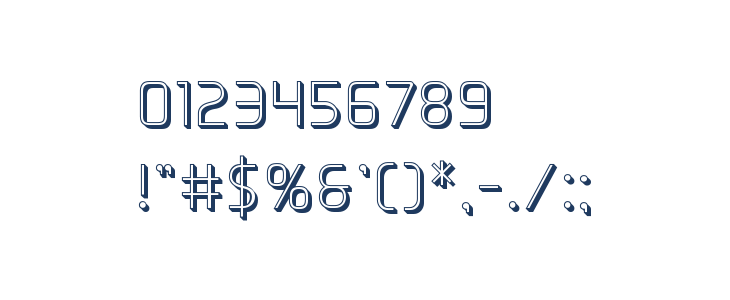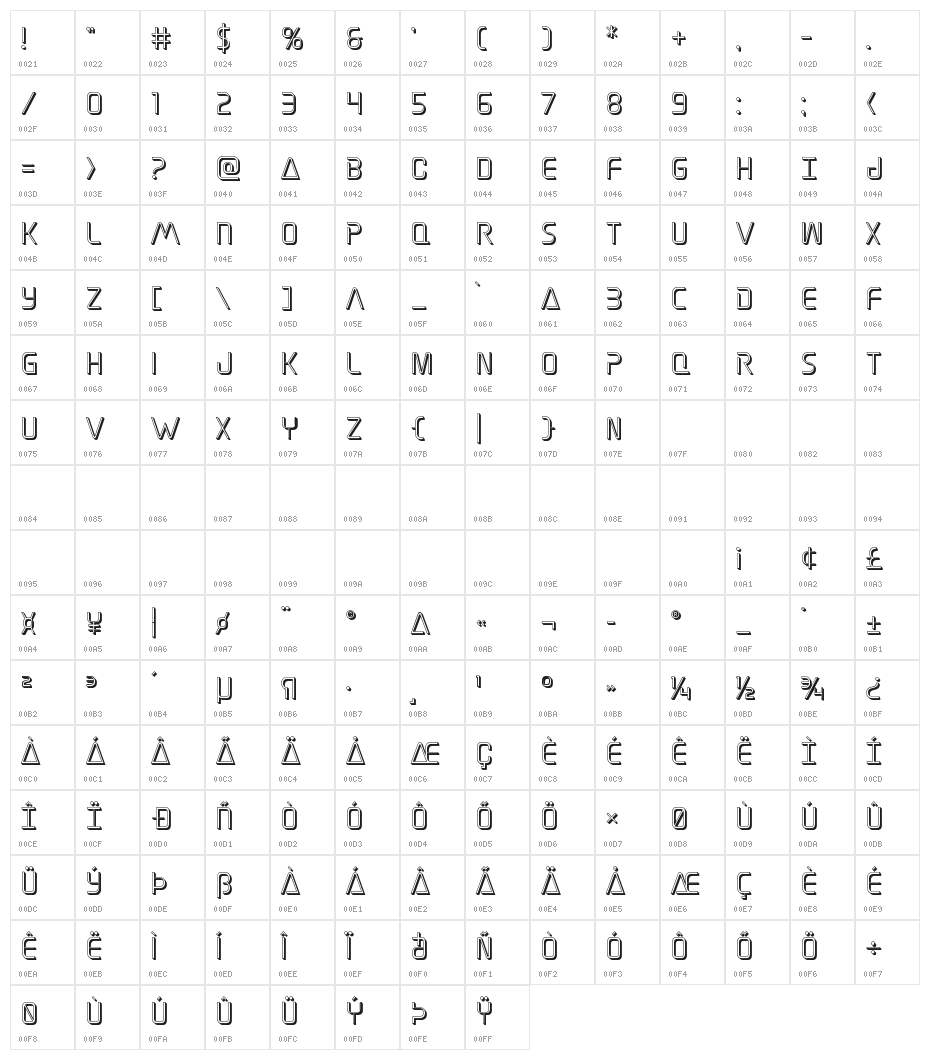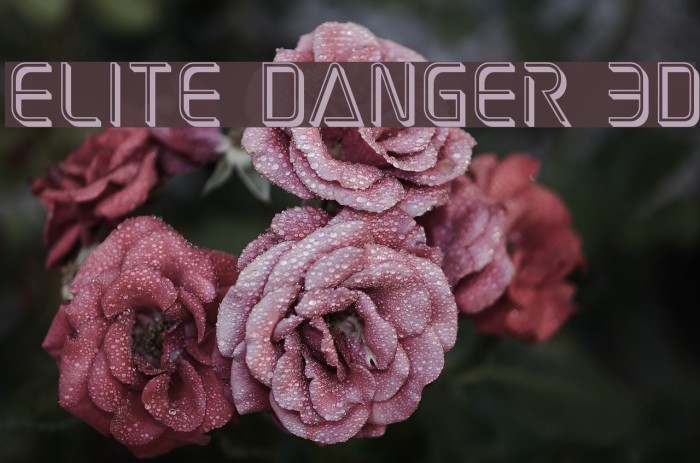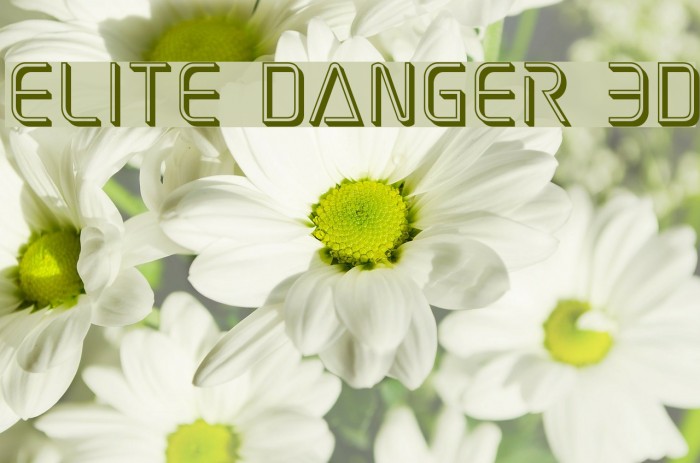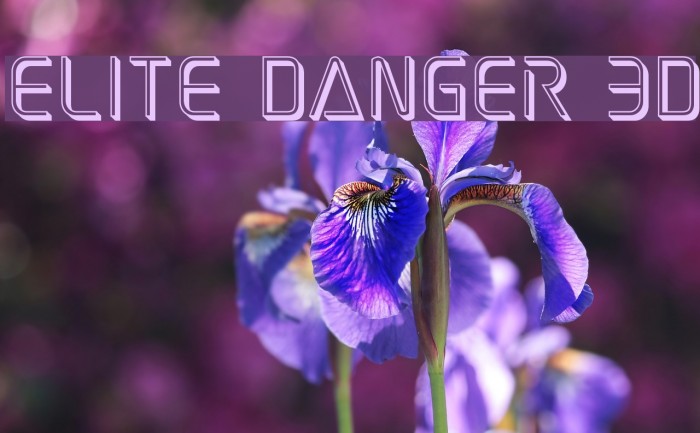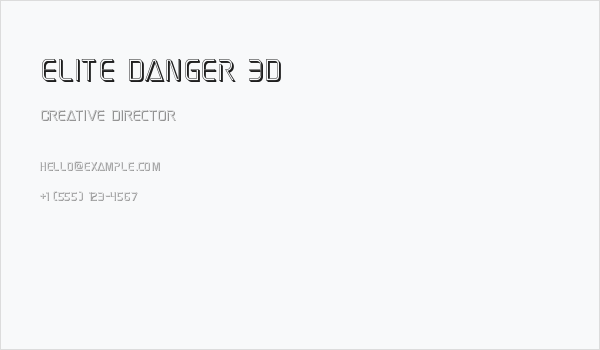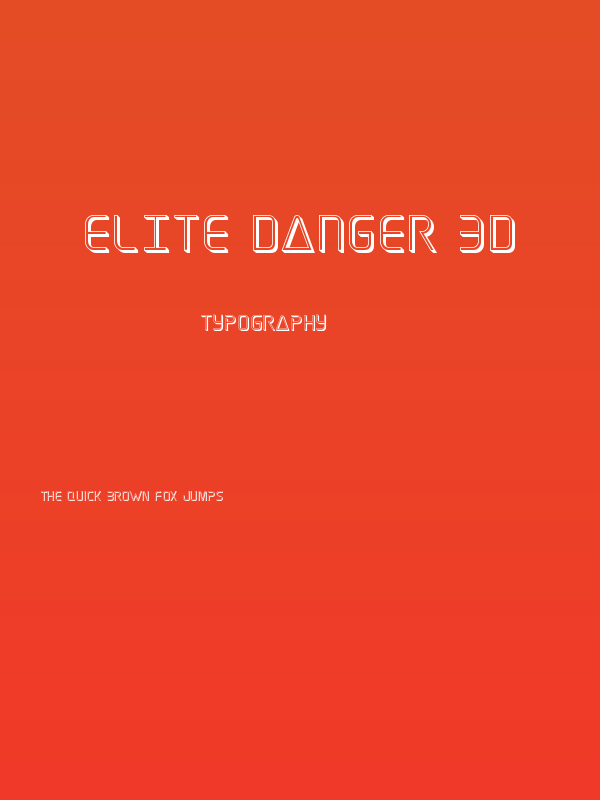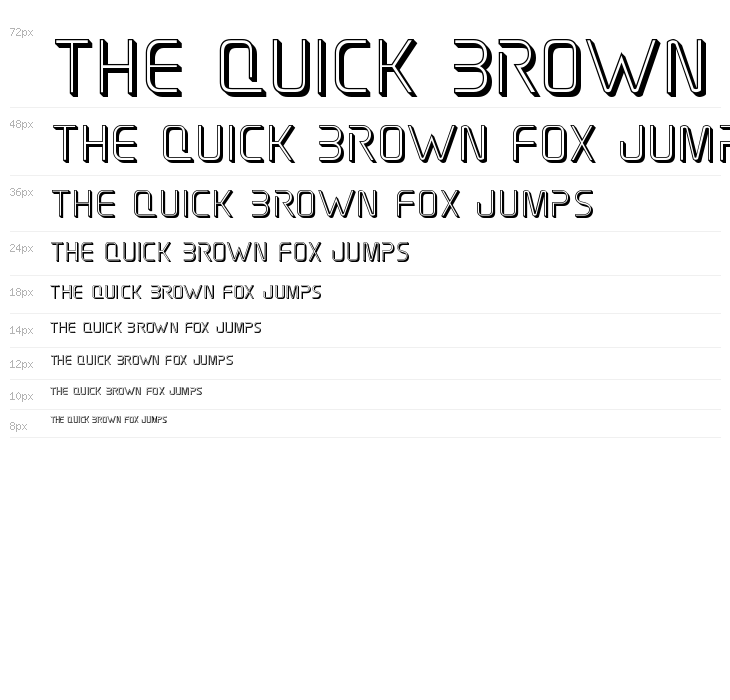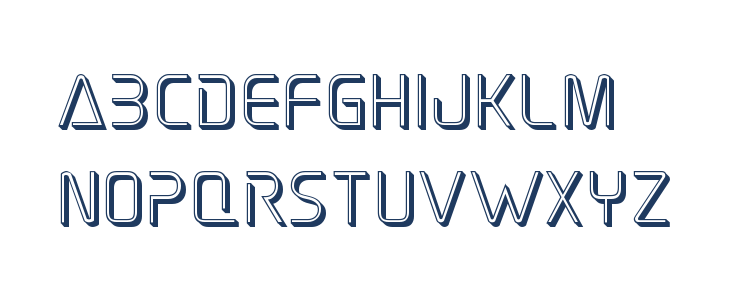
Elite Danger 3D Font
Elite Danger 3D Description
This font features a futuristic and geometric design, characterized by its three-dimensional appearance. The letters are constructed with bold, angular lines that create a sense of depth and modernity. The uppercase and lowercase letters maintain a consistent style, with sharp edges and a uniform stroke width. The numerals and special characters follow the same design principles, ensuring a cohesive look across all glyphs. This font's unique style makes it stand out, offering a visually striking option for various design projects.
Proposed ProjectsIdeal for sci-fi themed designs, video game titles, technology branding, and futuristic posters.